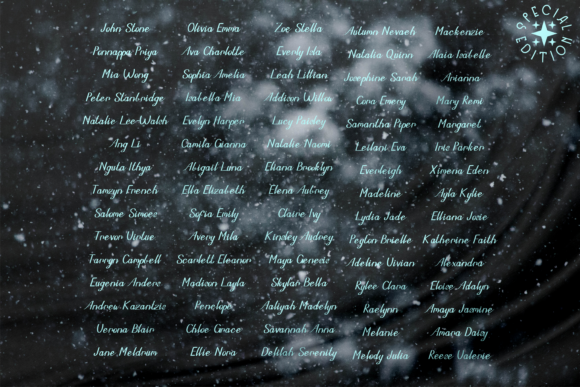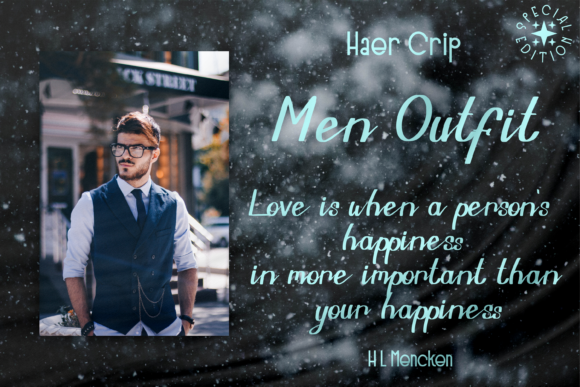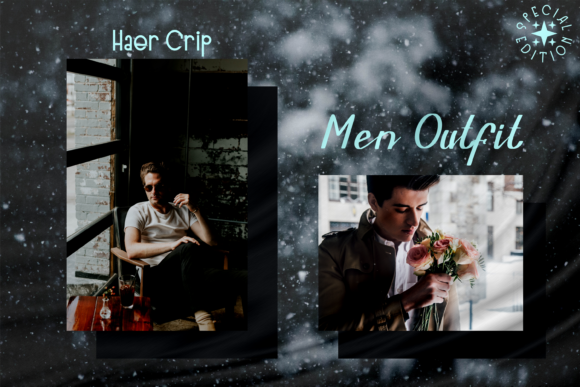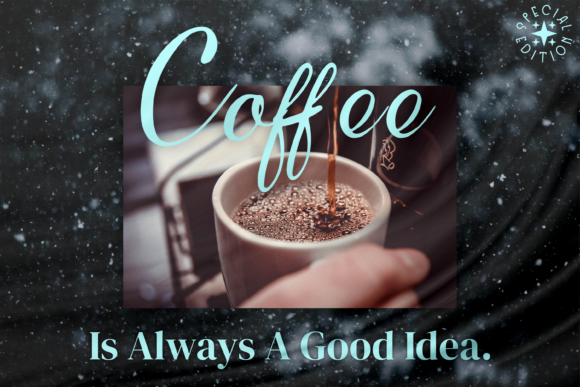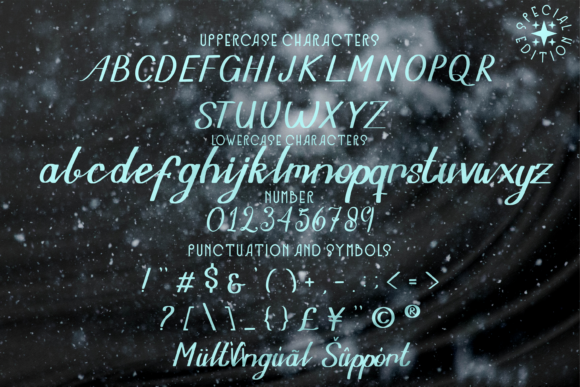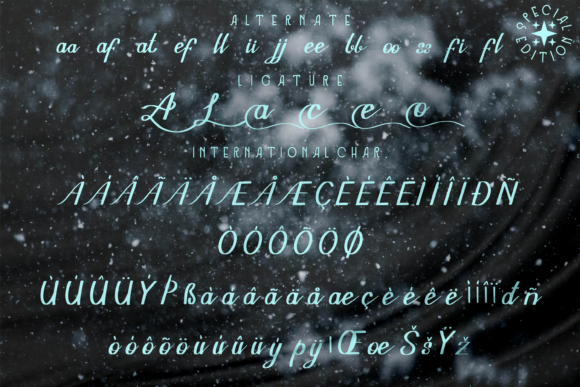
Introduction to John Tone Font
John Tone is an elegant and charming handwritten font, perfect for any creative project that needs an authentic look and feel.
It works great for invitations, greeting cards, name tags, marketing materials, and more .
Key Features of John Tone Font
Why Choose John Tone Font?
John Tone Font offers exceptional quality and versatility, making it a valuable addition to your design toolkit. Whether you’re creating for personal projects or commercial use, John Tone Font delivers professional results.